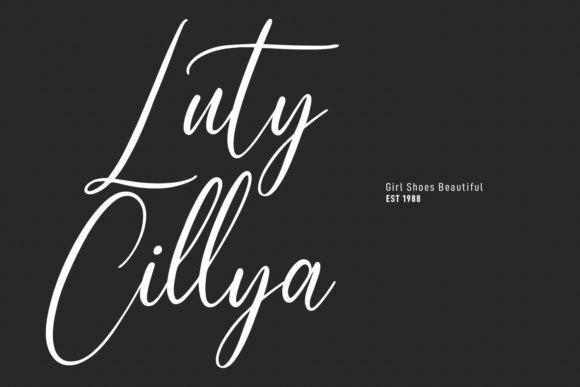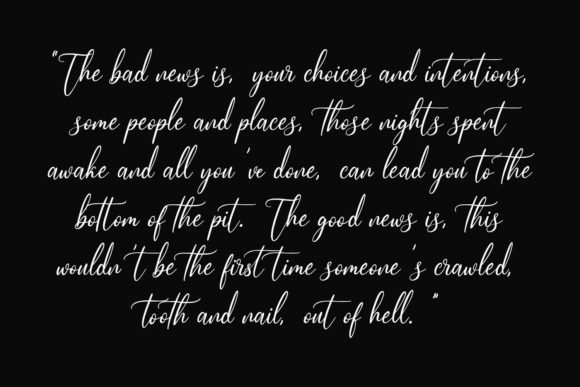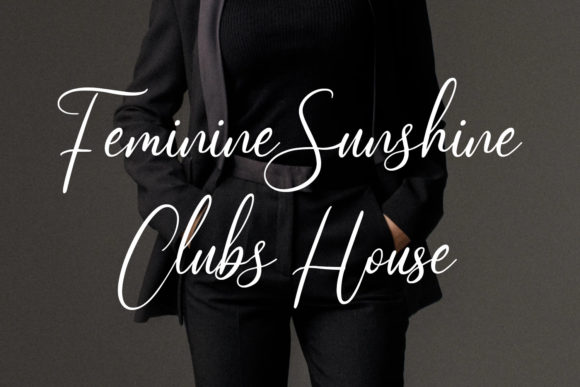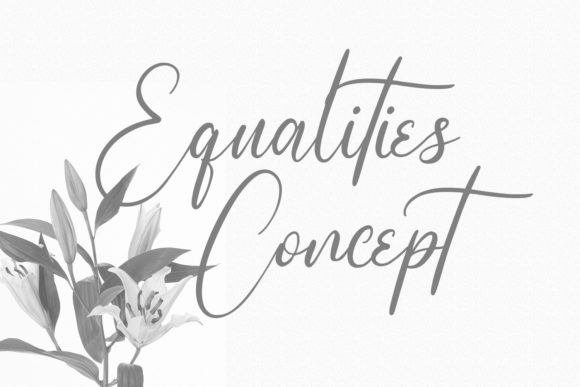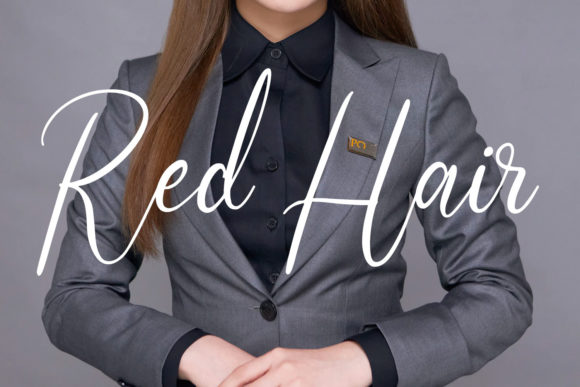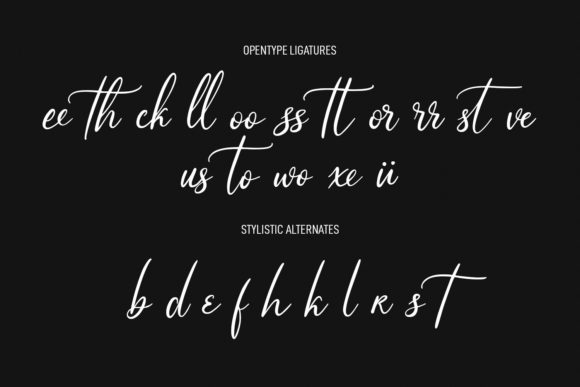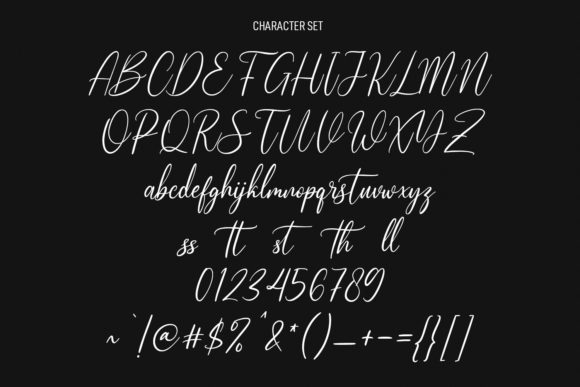
Kimberly Dellia Font
About Kimberly Dellia Font
Kimberly Dellia is an exquisite and elegant script font that brings a touch of sophistication and charm to a wide range of design projects. With its medium contrast strokes, playful characters, and intricate details, this font adds a distinct and captivating flair to any creative endeavor.
In the realm of blog posts, Kimberly Dellia offers a refined and visually appealing option for enhancing your content. Its graceful letterforms ensure readability while infusing your blog posts with a sense of elegance and style, making it a perfect choice for conveying information with a touch of luxury.
When it comes to logos and branding, Kimberly Dellia shines as a font that can help your brand make a lasting impression. Its ornate details and variety of ligatures and alternates allow for creative customization, ensuring that your logo is not only eye-catching but also tailored to your brand’s unique personality.
For advertisements, Kimberly Dellia adds a touch of class and sophistication that can elevate the impact of your marketing materials. Whether you’re designing print ads, digital banners, or social media posts, this font’s stylish and refined characters will draw attention and create a memorable visual experience.
Invitations and greeting cards are transformed into works of art with Kimberly Dellia. Its fancy script adds an air of elegance and luxury to special occasions, turning every invitation into a treasured keepsake and every greeting card into a beautiful memento.
The font’s versatility extends to planners, photo albums, and decorations, where its intricate details and graceful charm enhance the aesthetic appeal of your designs. Whether you’re creating decorative elements for an event or designing a personalized photo album, Kimberly Dellia’s medium contrast strokes and fun characters ensure that each project is imbued with a sense of refinement and beauty.
Kimberly Dellia is a font that effortlessly combines sophistication and playfulness, making it an ideal choice for designers seeking to add a touch of elegance to their projects. Its inclusion of ligatures and alternates opens up a world of creative possibilities, allowing you to tailor the font to suit your specific design needs. Whether you’re working on logos, branding, invitations, blog posts, or any other creative venture, Kimberly Dellia is a font that adds a sense of luxury and charm to every design.